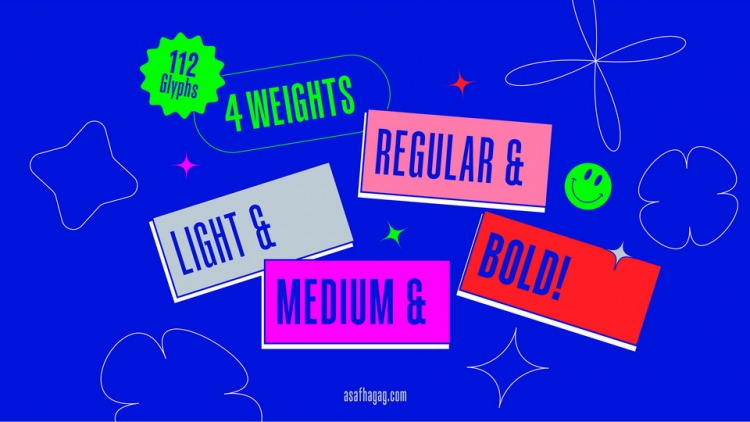
SuperDuper Sans Serif Font
It’s a contemporary progressive typeface that explores mechanical robustness and dynamism. Made from font designer named Asaf Hagag. It looks great in posters, social media, magazine titles and when you need maximum use of space.